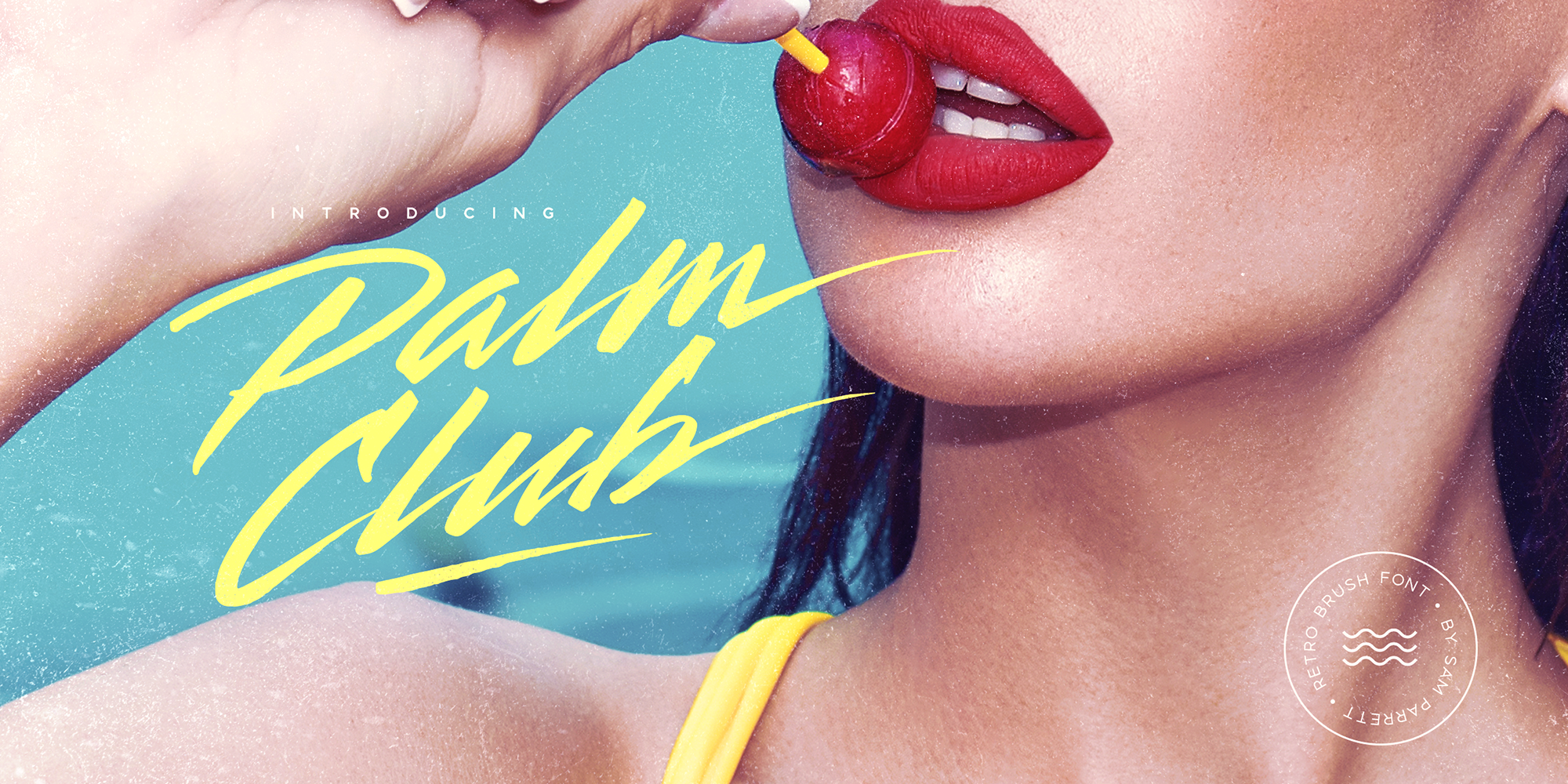
Palm Club Font is perfect for tropical resort branding, beachside club signage, summer cocktail menus, poolside bar marketing, vacation rental properties, tropical wedding invitations, beach party graphics, island tourism campaigns, summer fashion collections, and coastal lifestyle branding.
What makes Palm Club Font exciting is its laid-back sophistication and tropical elegance that captures the essence of exclusive beachside living with relaxed luxury and island charm. This refreshing typeface embodies the spirit of tropical paradise with its breezy character forms and resort-inspired proportions that evoke swaying palm trees, crystalline waters, and the effortless elegance of those who have discovered the secret to living life at a perfect tropical pace. The font's relaxed character creates an immediate sense of vacation bliss and the kind of sophisticated leisure that defines premium tropical destinations.
Palm Club Font family includes regular weight with tropically crafted character designs featuring breezy curves and resort-style proportions. The typeface maintains excellent readability while showcasing its distinctive tropical personality through elegantly designed letterforms that seem to sway with ocean breezes and radiate the warm hospitality of exclusive island clubs.
Resort designers consistently choose Palm Club Font Free Download for projects requiring authentic tropical appeal and resort sophistication. This remarkable typeface brings the elegance of tropical paradise to brand communications, combining beachside aesthetics with luxury hospitality to create unforgettable vacation experiences. The tropically designed characters ensure relaxed luxury impact across all applications, making it essential for resorts, beach clubs, and any organization seeking to communicate the sophisticated relaxation and tropical elegance that comes from embracing the perfect balance of luxury and laid-back island living through Palm Club Font Free Download.